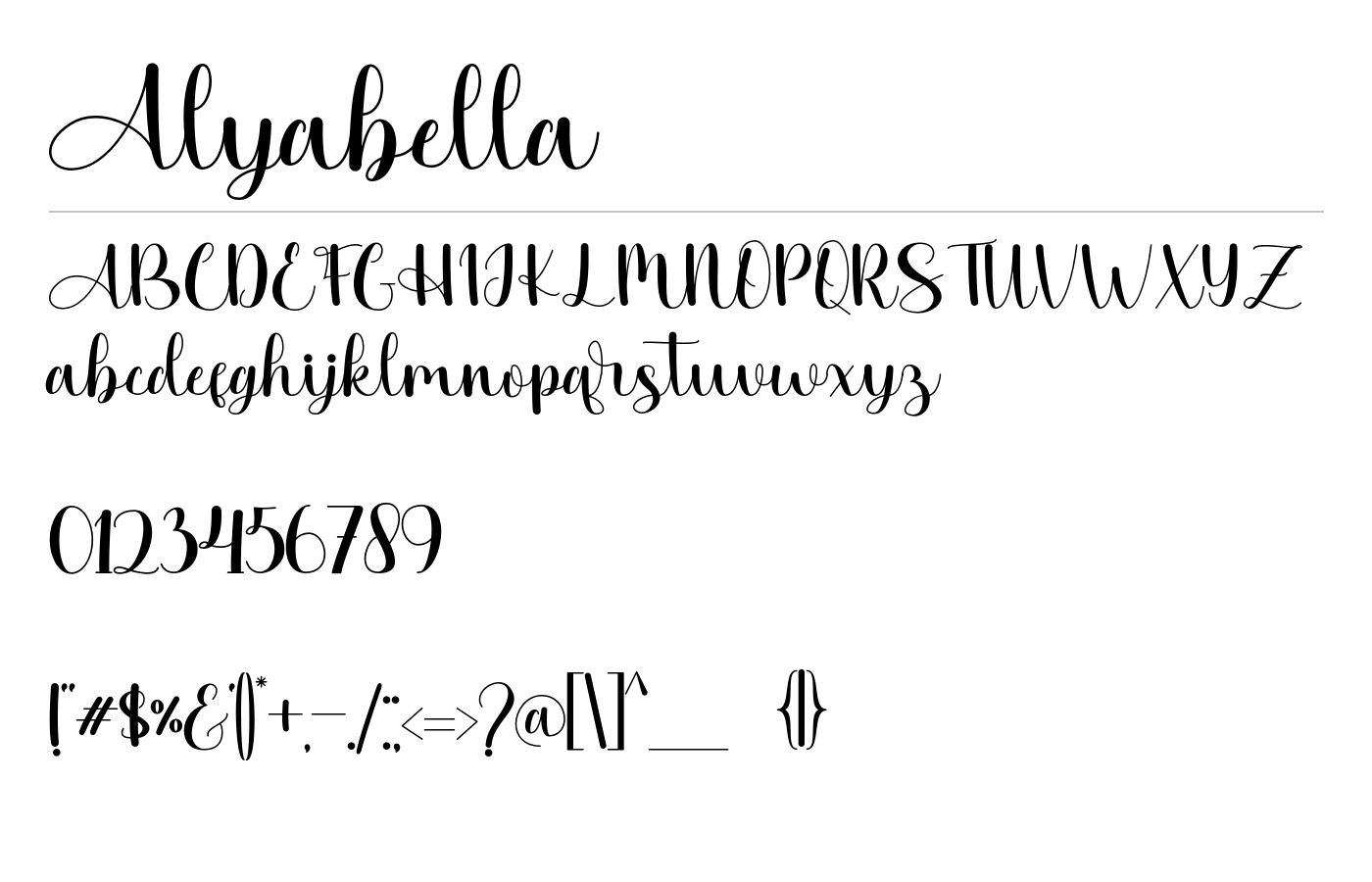
Alyabella is an elegant script font with a graceful, flowing style that combines smooth curves and delicate flourishes, making it ideal for feminine and sophisticated designs. Its moderate weight and tall x-height ensure readability, while the distinctive swashes and loops add a charming, handcrafted feel perfect for invitations, branding, and decorative headlines. This font works especially well in contexts that call for a stylish, romantic, and refined touch.
Alyabella Font